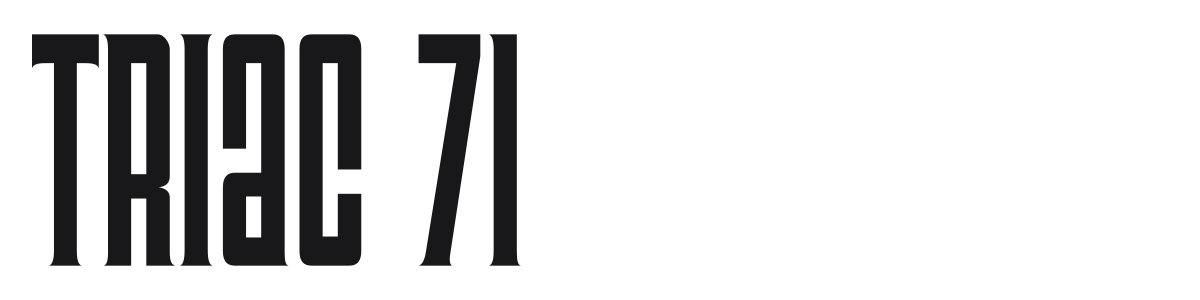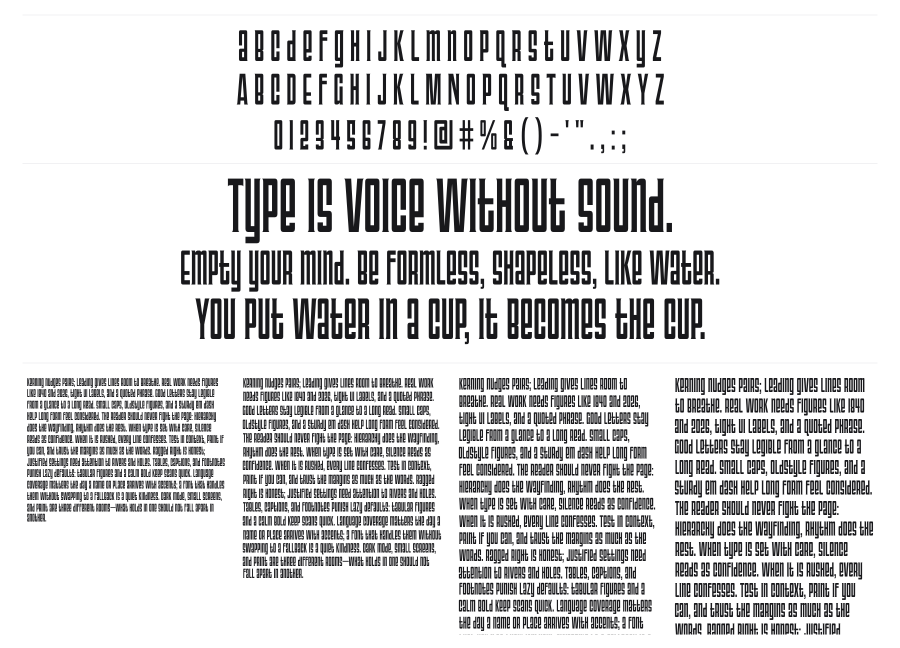
Triac 71
Triac 71 is a boldly condensed retro display serif inspired by the modular lettering of 1960s jazz album covers. Its near-monoweight strokes and tightly compressed proportions give it a powerful, almost architectural presence at large sizes. Raymond Larabie released it under CC0, meaning it's completely free for any use.